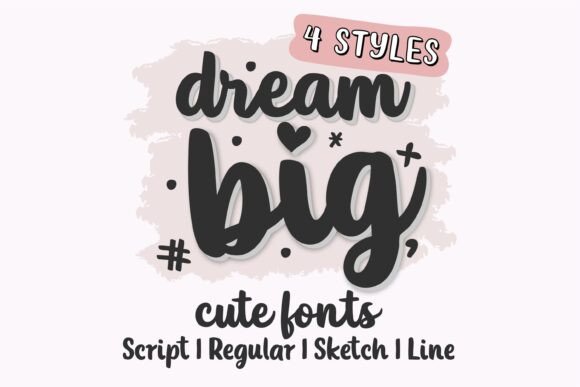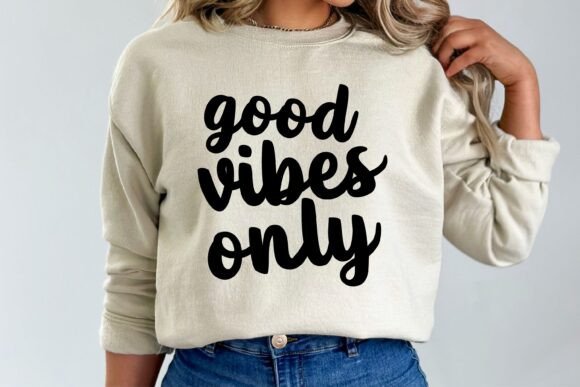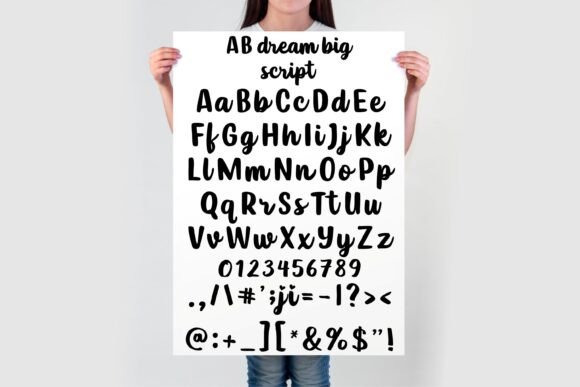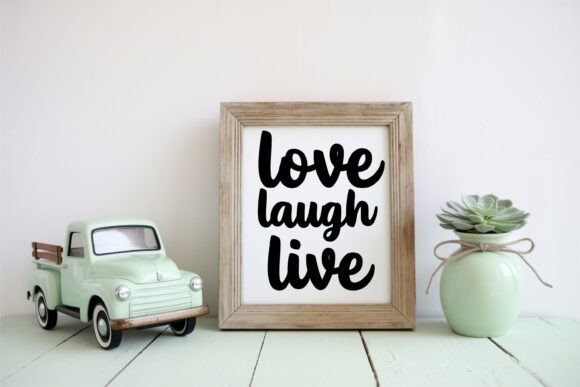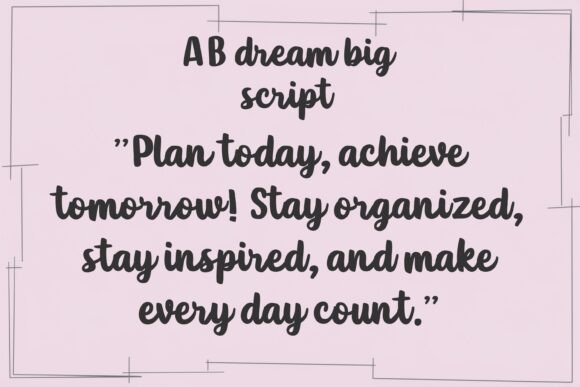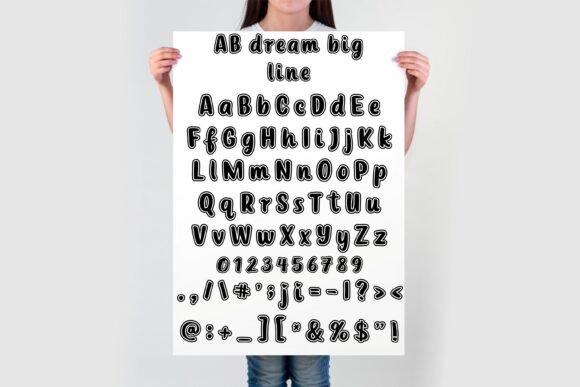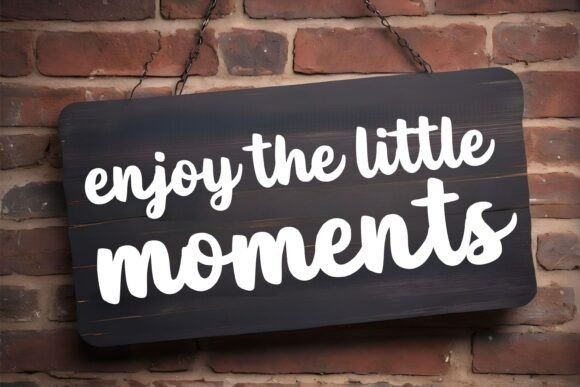
Dream Big Bundle Font
The AB Dream Big Font Bundle is a playful and modern handwritten script perfect for all your creative projects! With four unique styles—Script, Regular, Sketch, and Line—this font is ideal for Cricut, Silhouette, Procreate, Canva, sublimation, and more. Designed for crafters, teachers, small business owners, and digital designers, this font works beautifully for t-shirts, mugs, greeting cards, planner pages, stickers, and branding materials. Whether you need a fun, thick script or a stylish handwritten font, AB Dream Big has you covered!